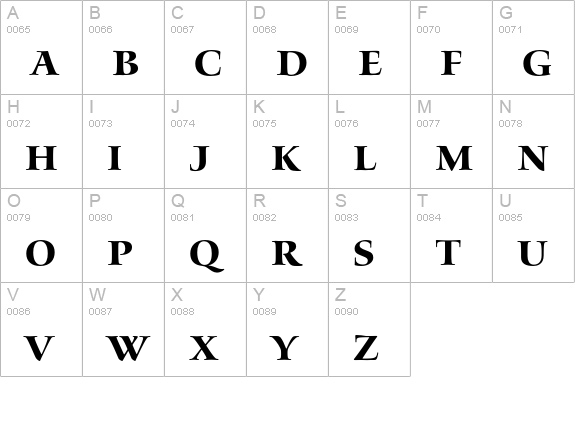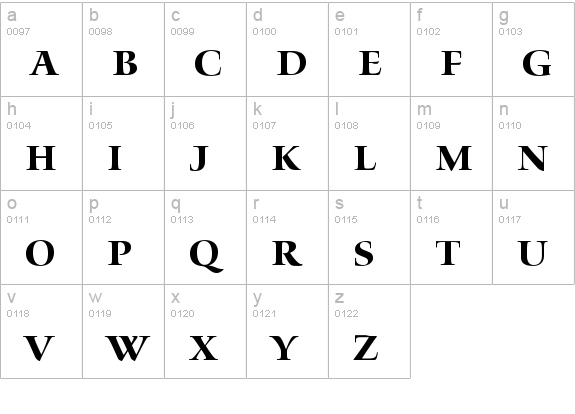
Waters Titling Pro Bold is a strong, high-contrast variant in the Waters typeface family \xE2\x80\x94 well suited to headlines, attention-grabbing titles, and strong calls-to-action.
Waters Titling Pro Bold font is a bold and striking typeface that exudes confidence and sophistication. Its strong and distinct letterforms make it perfect for headlines, titles, and branding materials that demand attention. With its clean lines and elegant curves, Waters Titling Pro Bold font adds a touch of modernity to any design project. Whether used in print or digital mediums, this font captivates the reader with its boldness and professionalism. What sets Waters Titling Pro Bold font apart is its versatility. It can be used in various design styles, from classic to contemporary, making it a go-to choice for graphic designers, advertising agencies, and creative professionals. And the best part? Waters Titling Pro Bold font is available for free! You can easily download this stunning font at FontsMarket.com, a reputable source for high-quality fonts. This means you can enjoy the beauty and functionality of Waters Titling Pro Bold font without any cost or hassle. So, if you're looking for a bold and impactful font to make your designs stand out, look no further than Waters Titling Pro Bold font. Download it for free at FontsMarket.com and elevate your design projects to the next level.